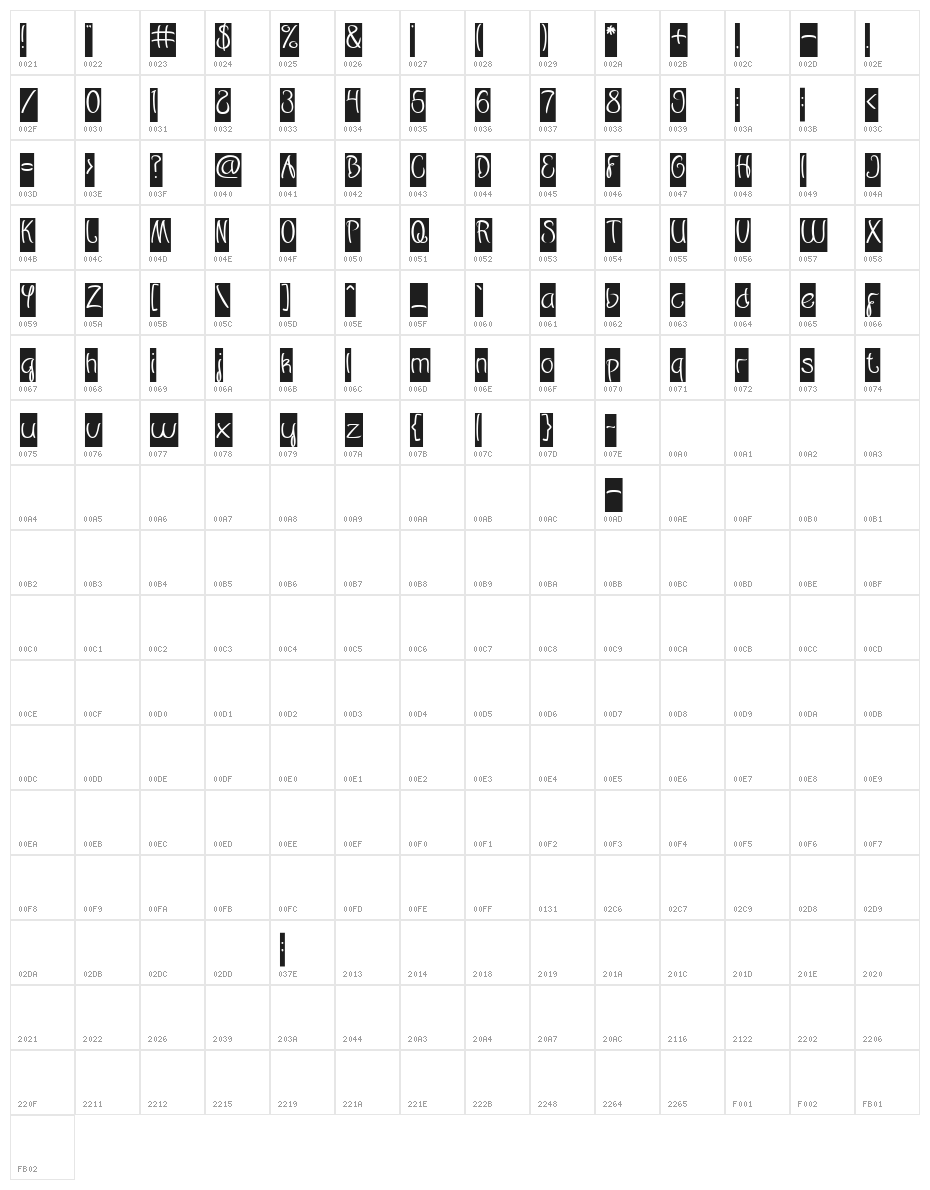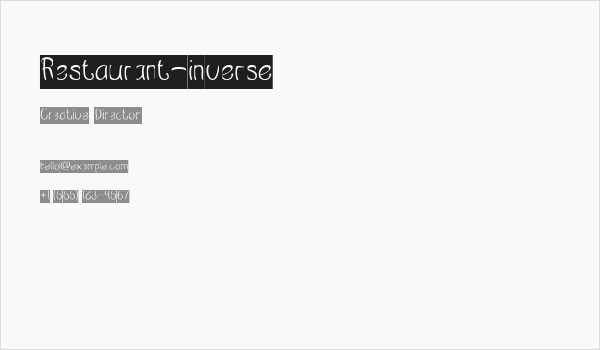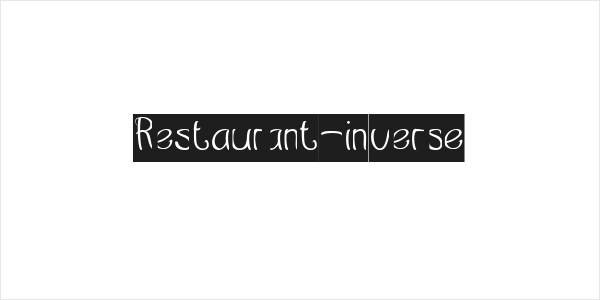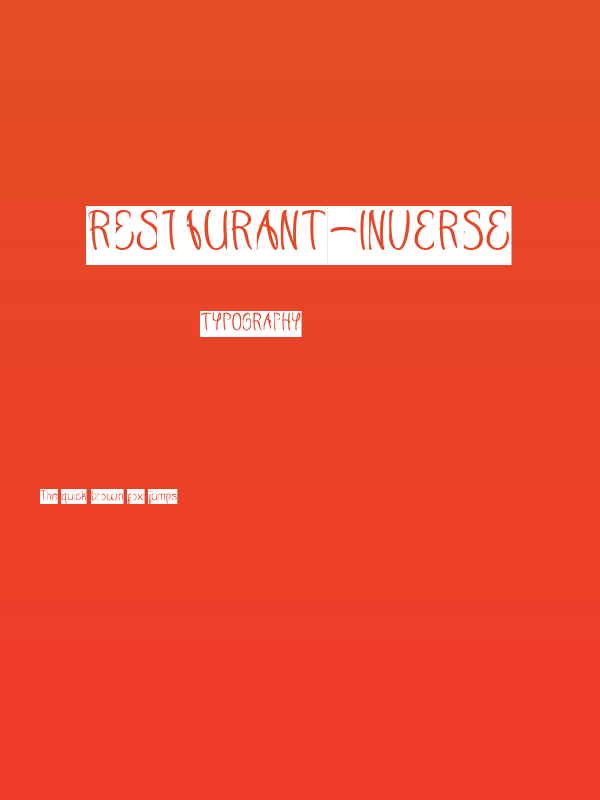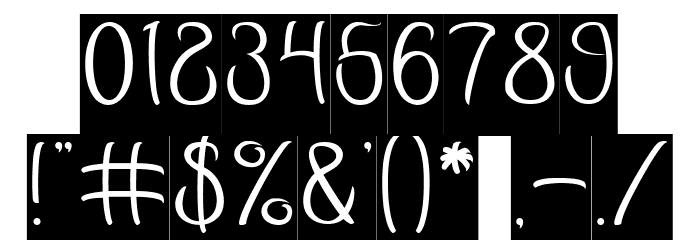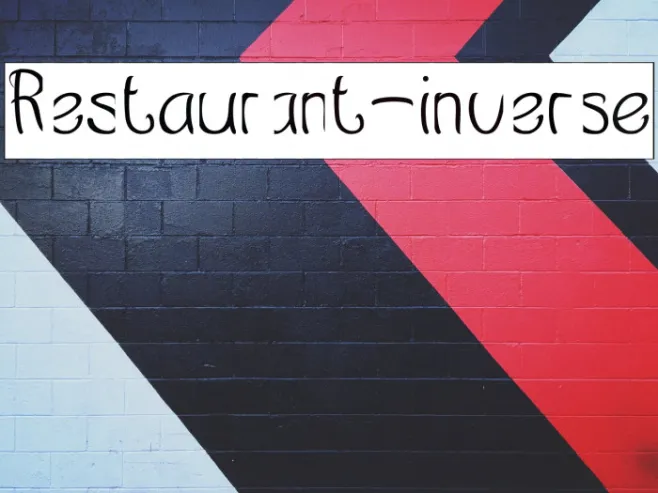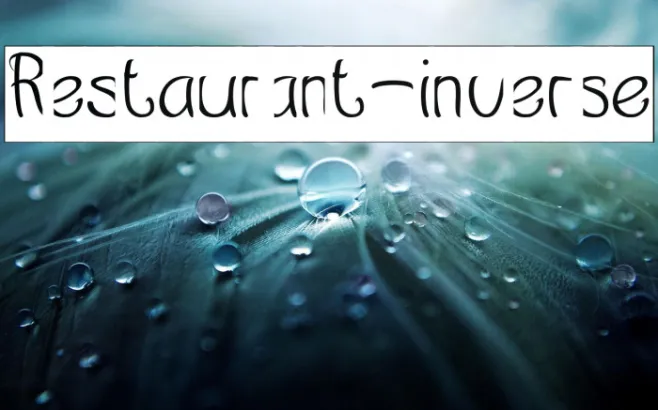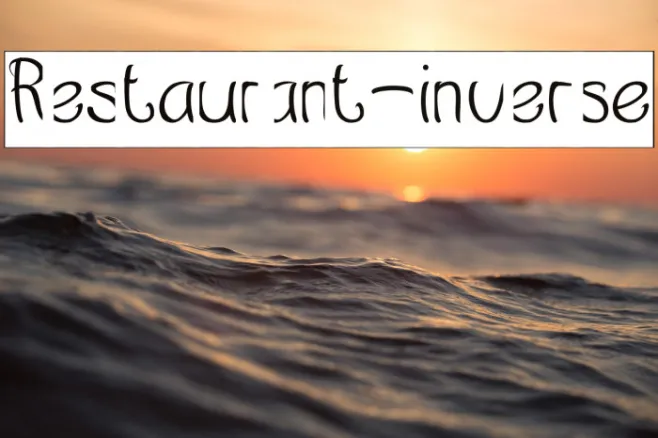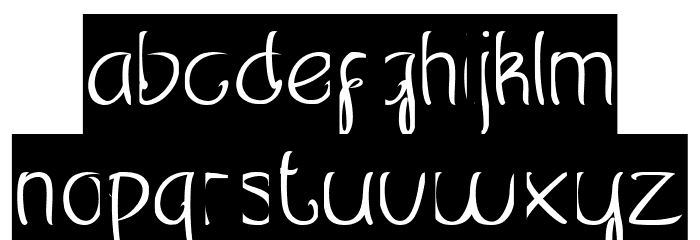
Restaurant-inverse Font
Restaurant-inverse Description
This font features a playful and whimsical style with a hand-drawn appearance. The characters are elongated with a slight slant, giving them a dynamic and lively feel. The strokes are smooth and flowing, with occasional loops and curls that add to its charm. The uppercase letters are bold and prominent, while the lowercase letters maintain a consistent style with a slightly more delicate touch. The numbers and special characters follow the same playful design, making this font suitable for creative and informal applications.